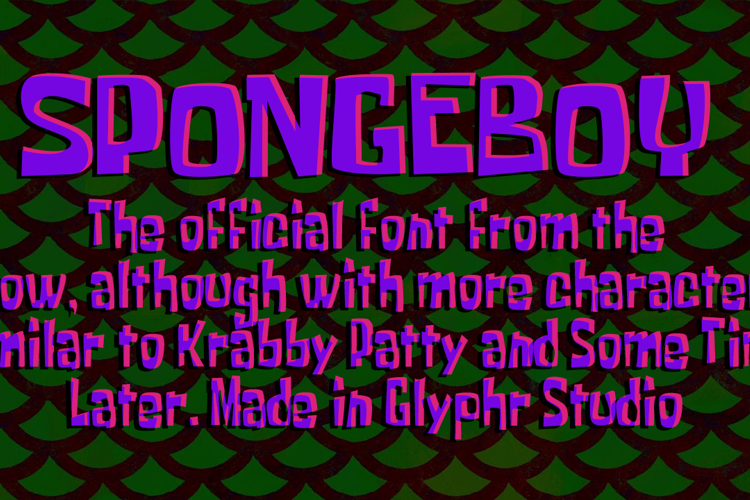
Spongeboy Font
Took the spongeboyTT1 font and added more characters.
Extra glyphs added in Glyphr Studio.
Mostly used in the foreign title cards.
Similar to Krabby Patty and Some Time Later.The spongeboyTT1 font with more characters.
Made in Glyphr Studio.
Similar to Some TIme Later and Krabby Patty.
Use for making title cards and whatever.
Is it just me or is there more space than needed after the '^' glyph?
I didn't really bother with that, but I sure did have fun making the font!
I'm gonna recreate the exact same font, just without the weird spacing. Coming soon.